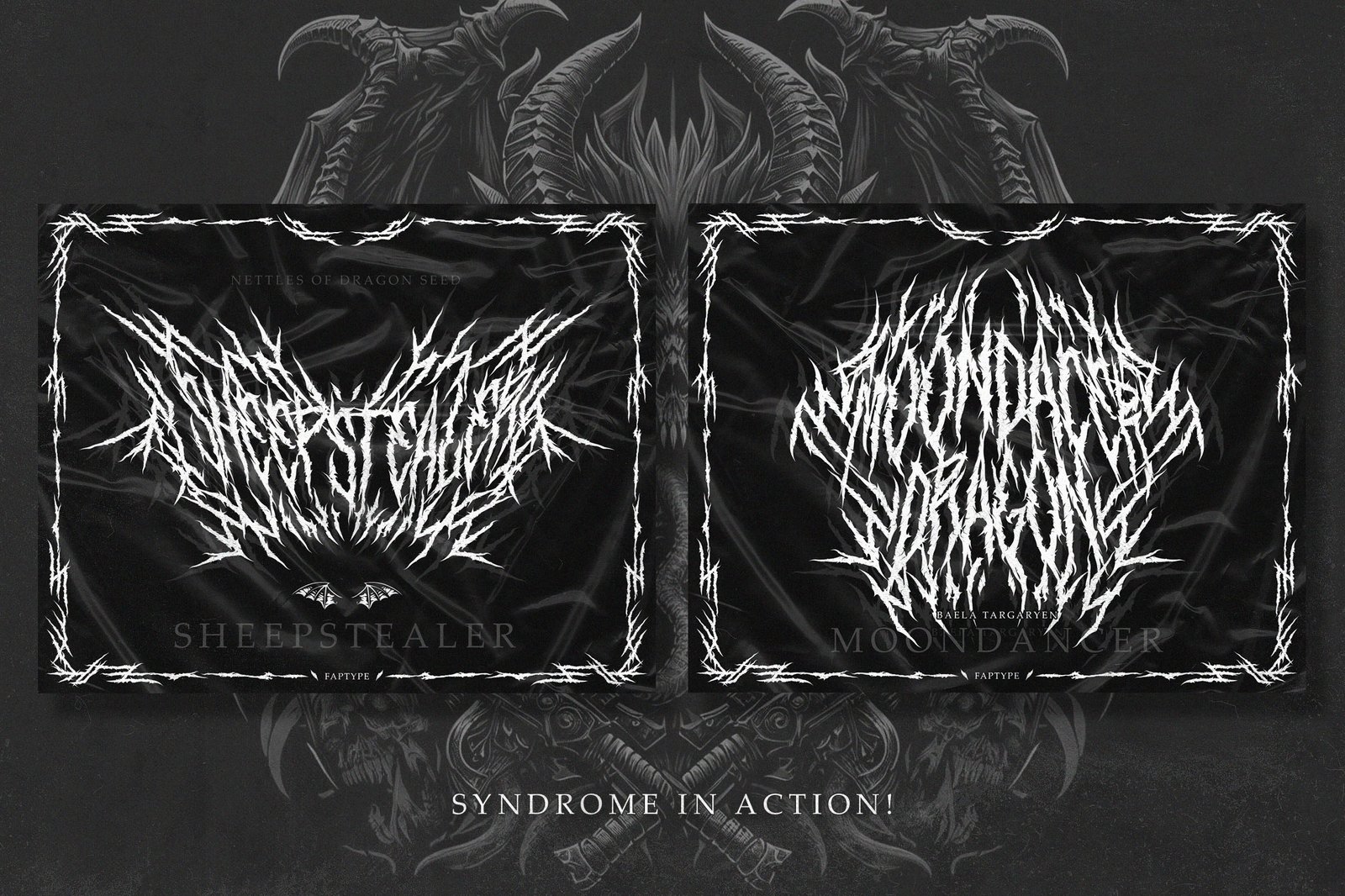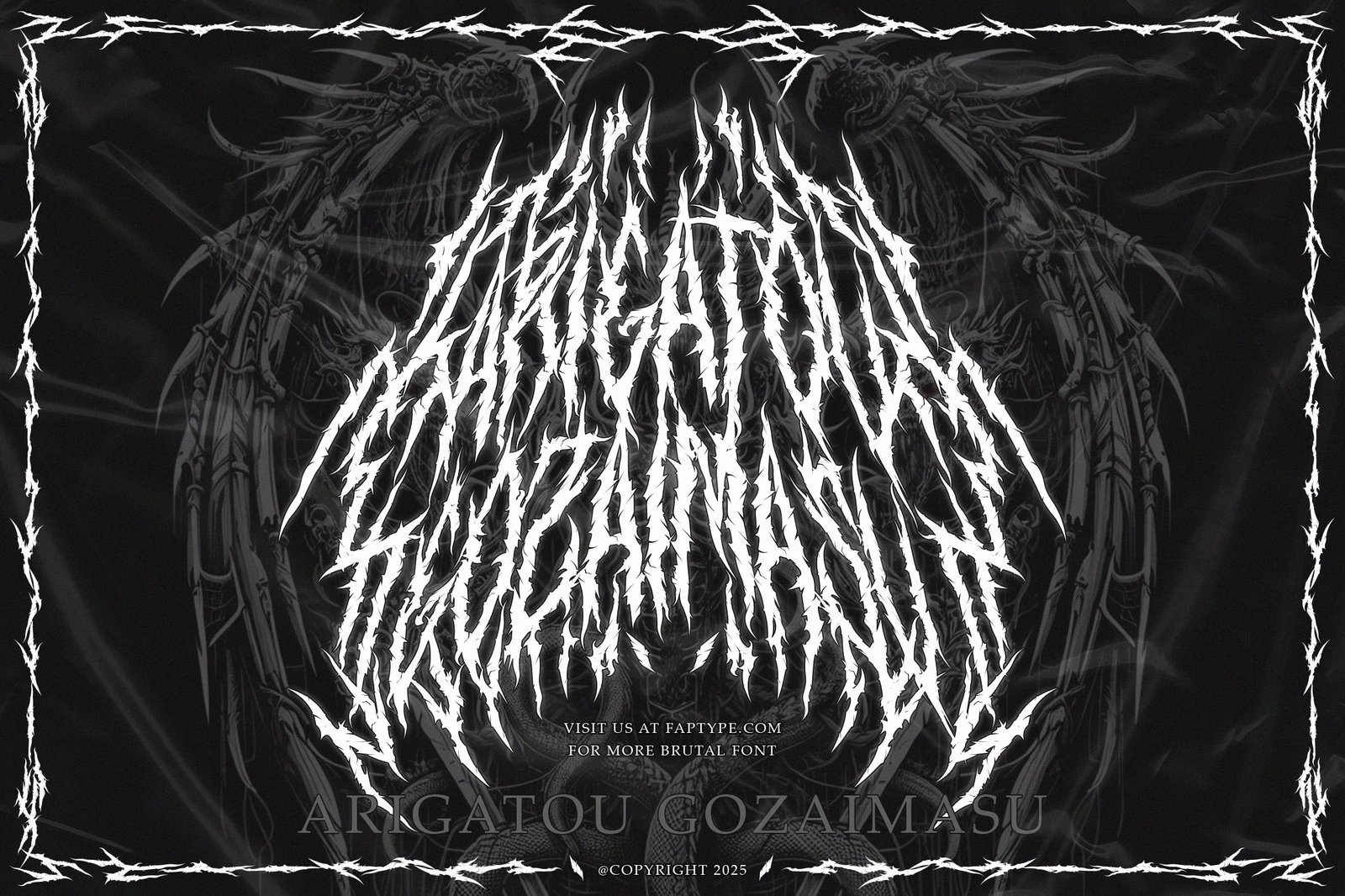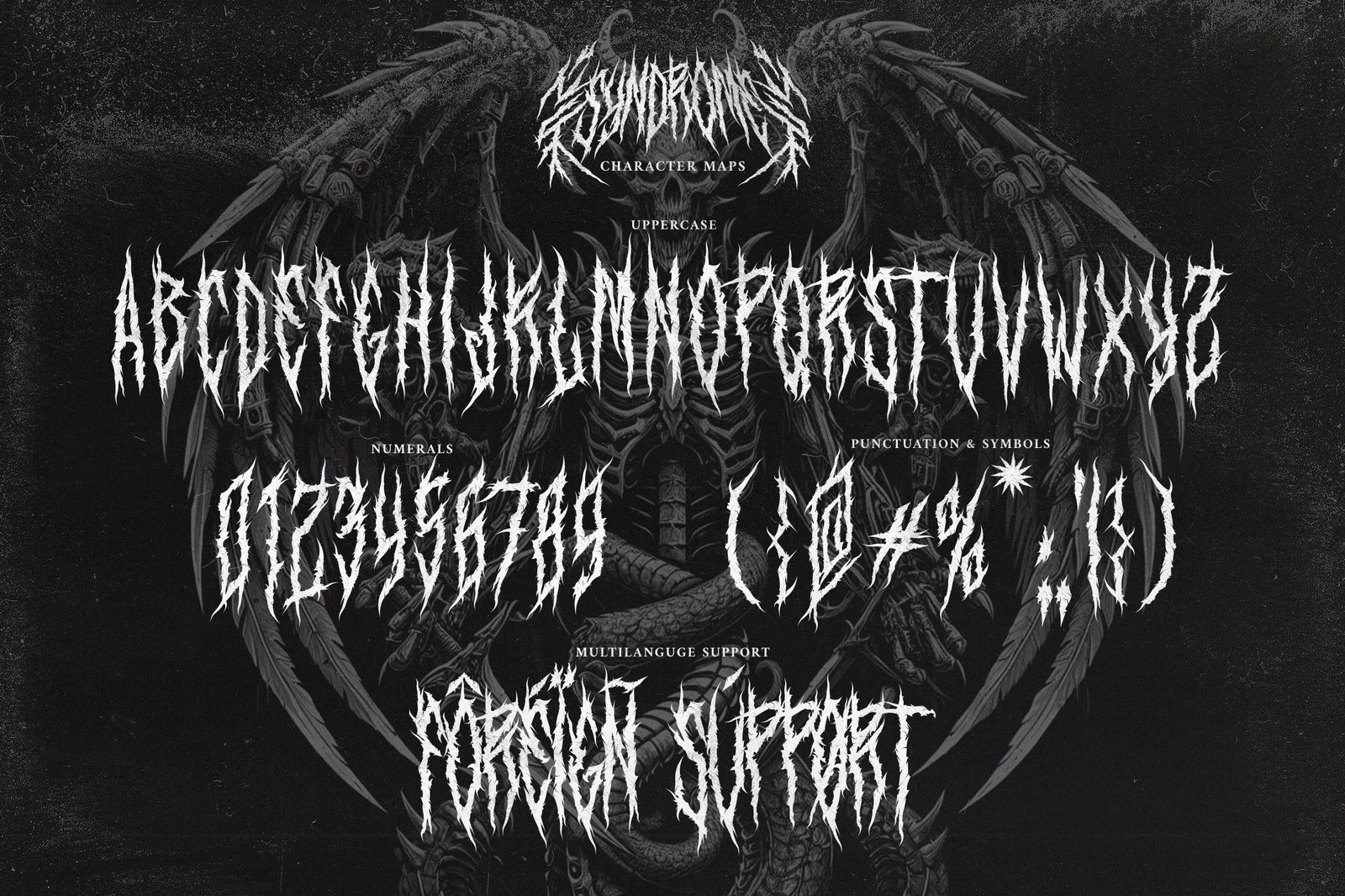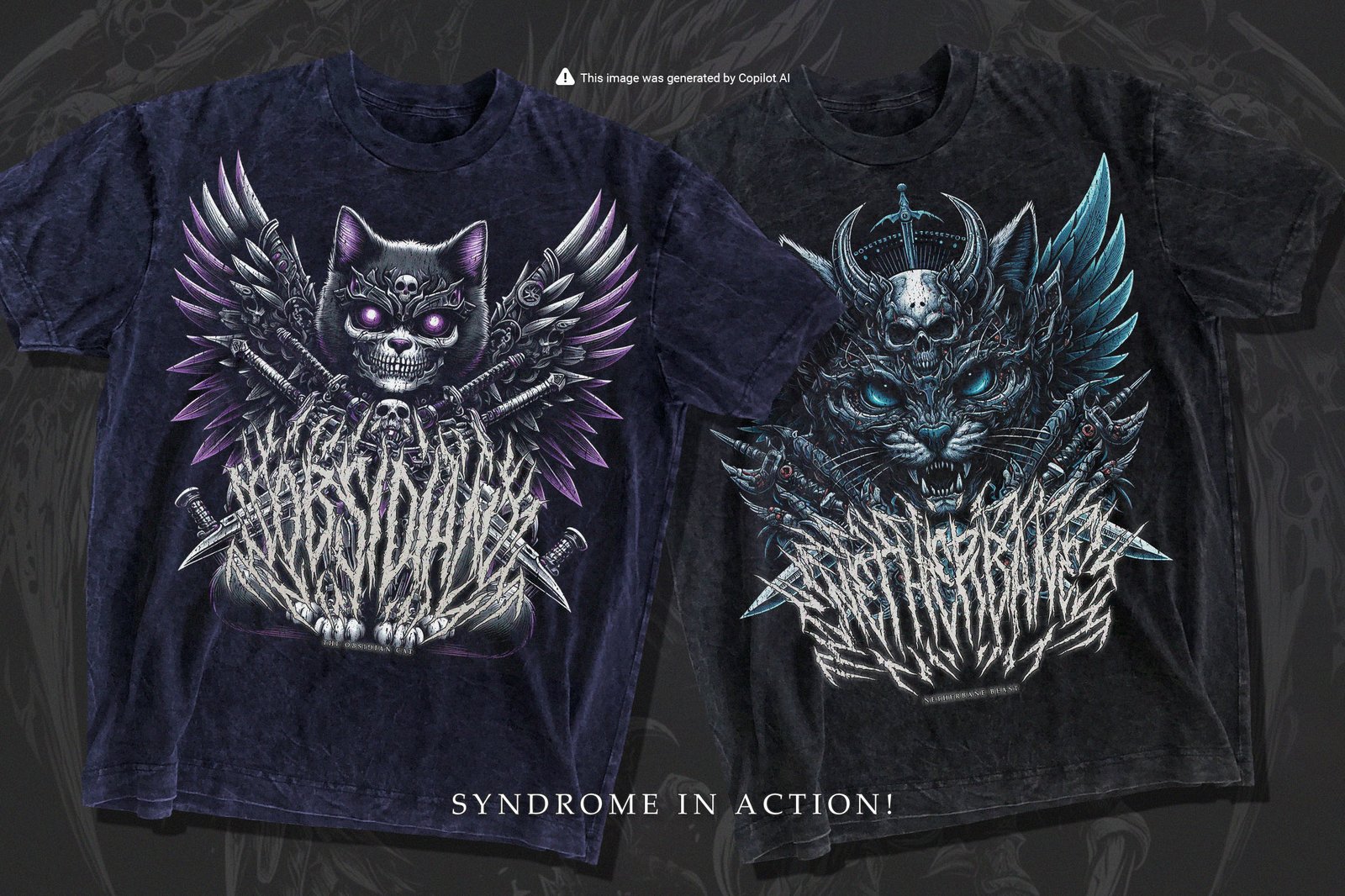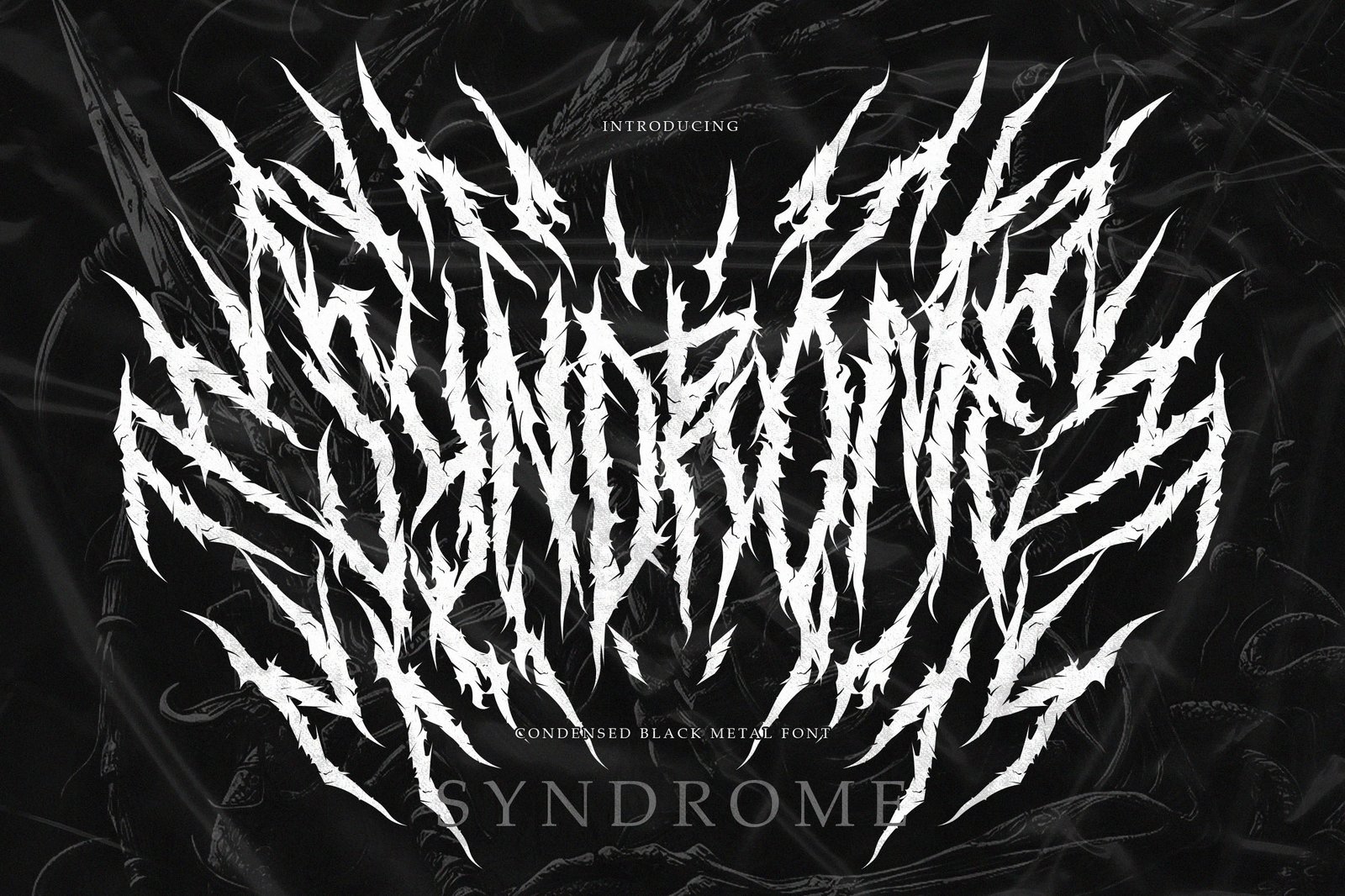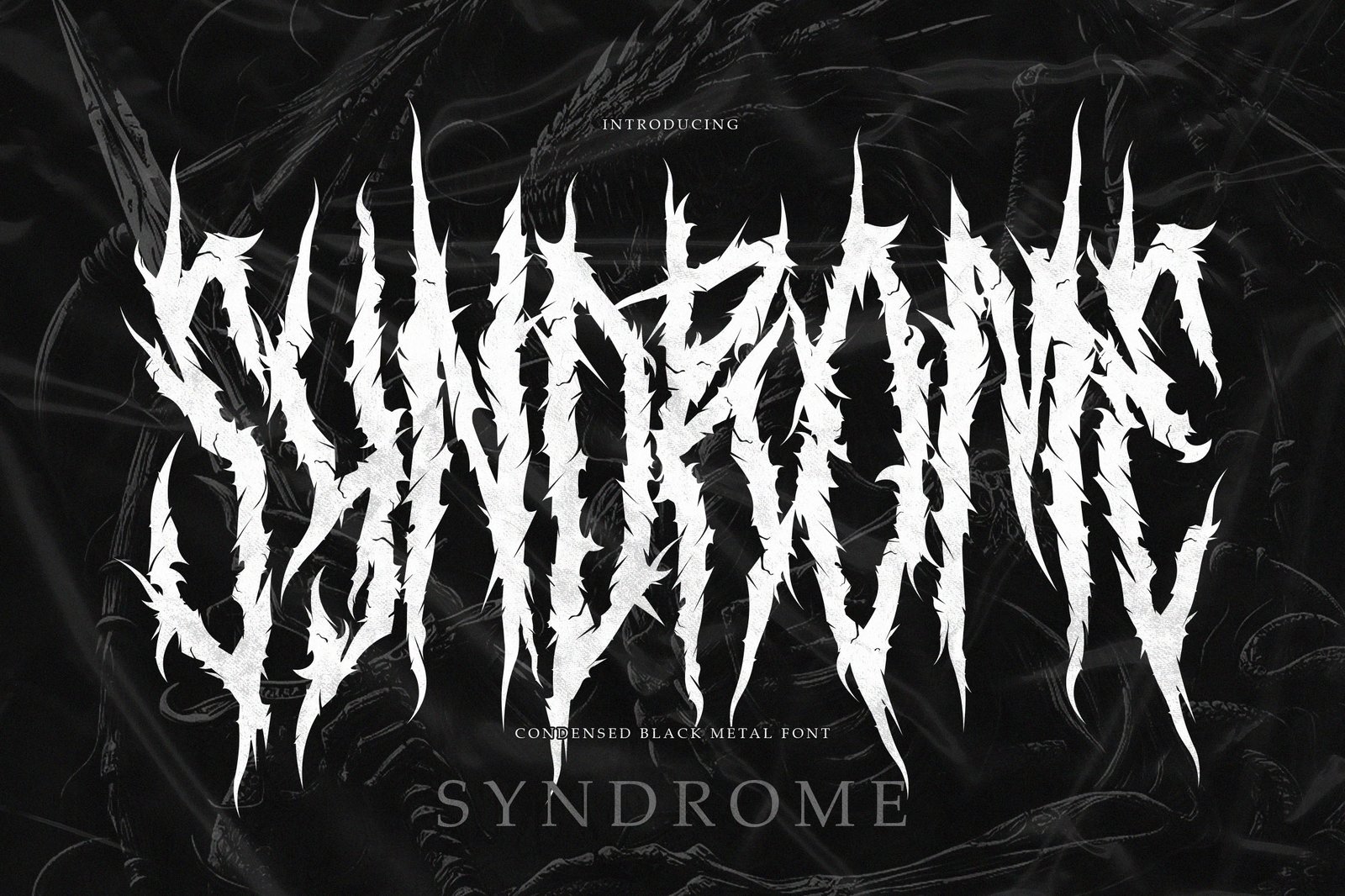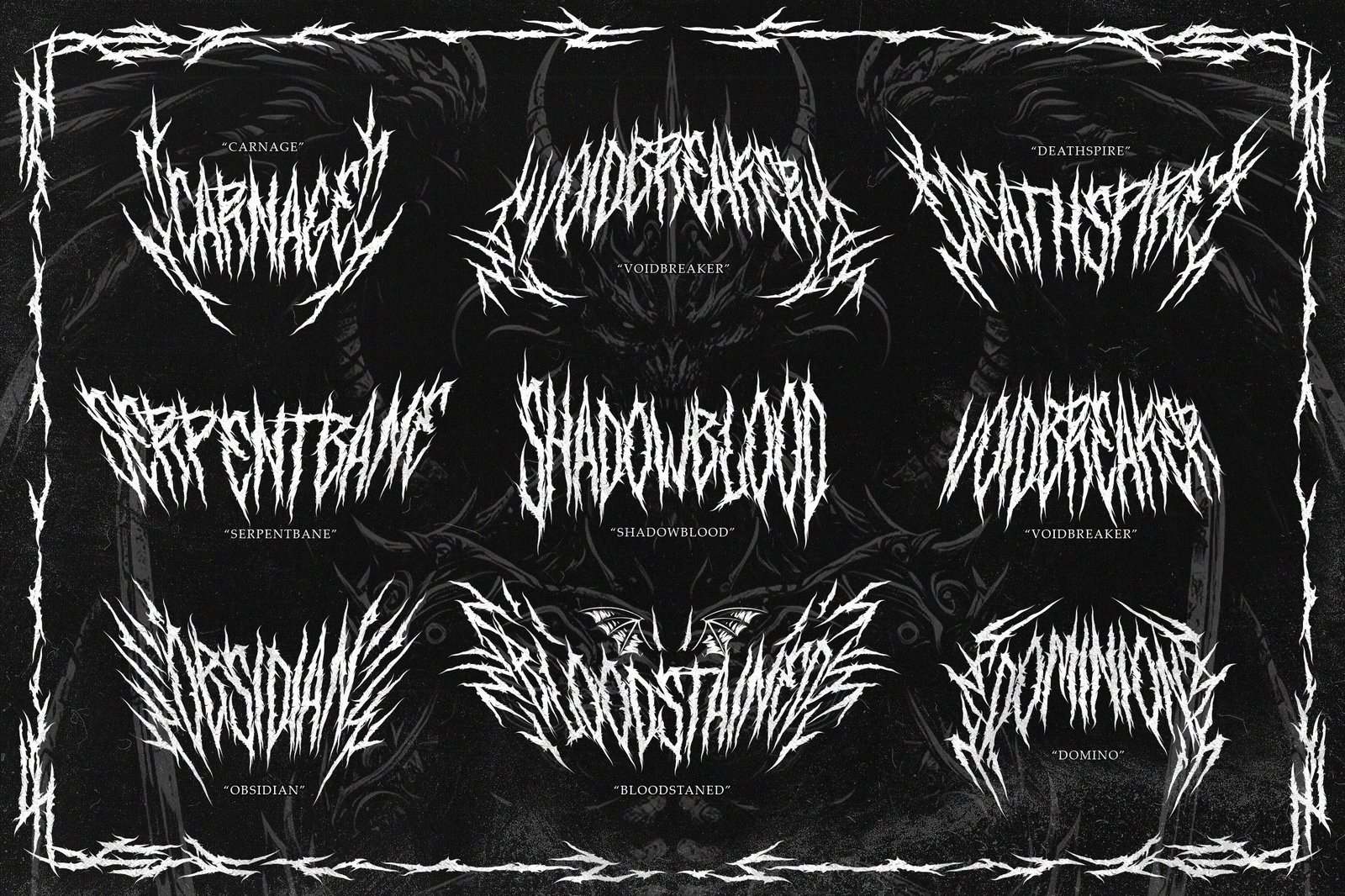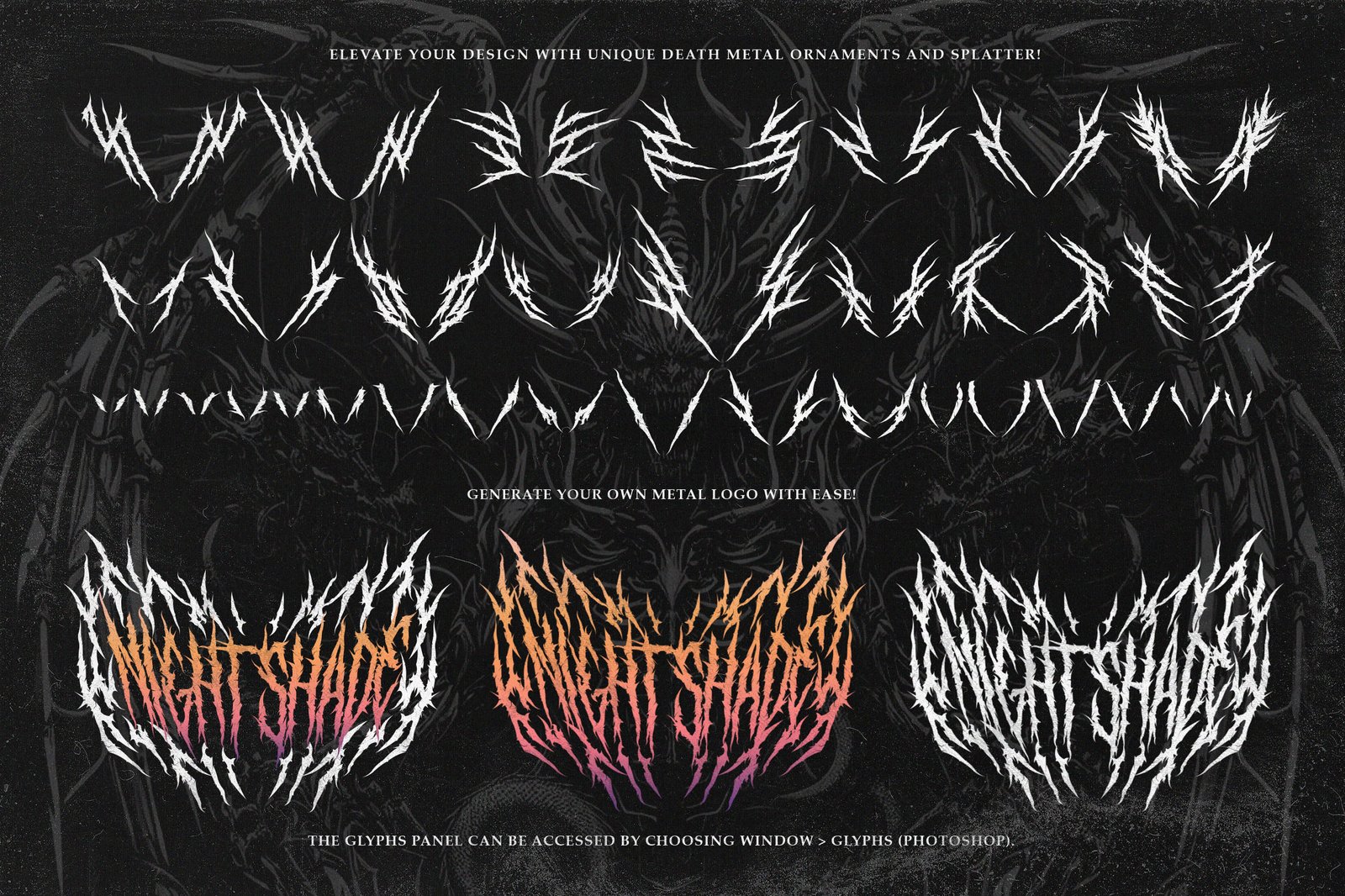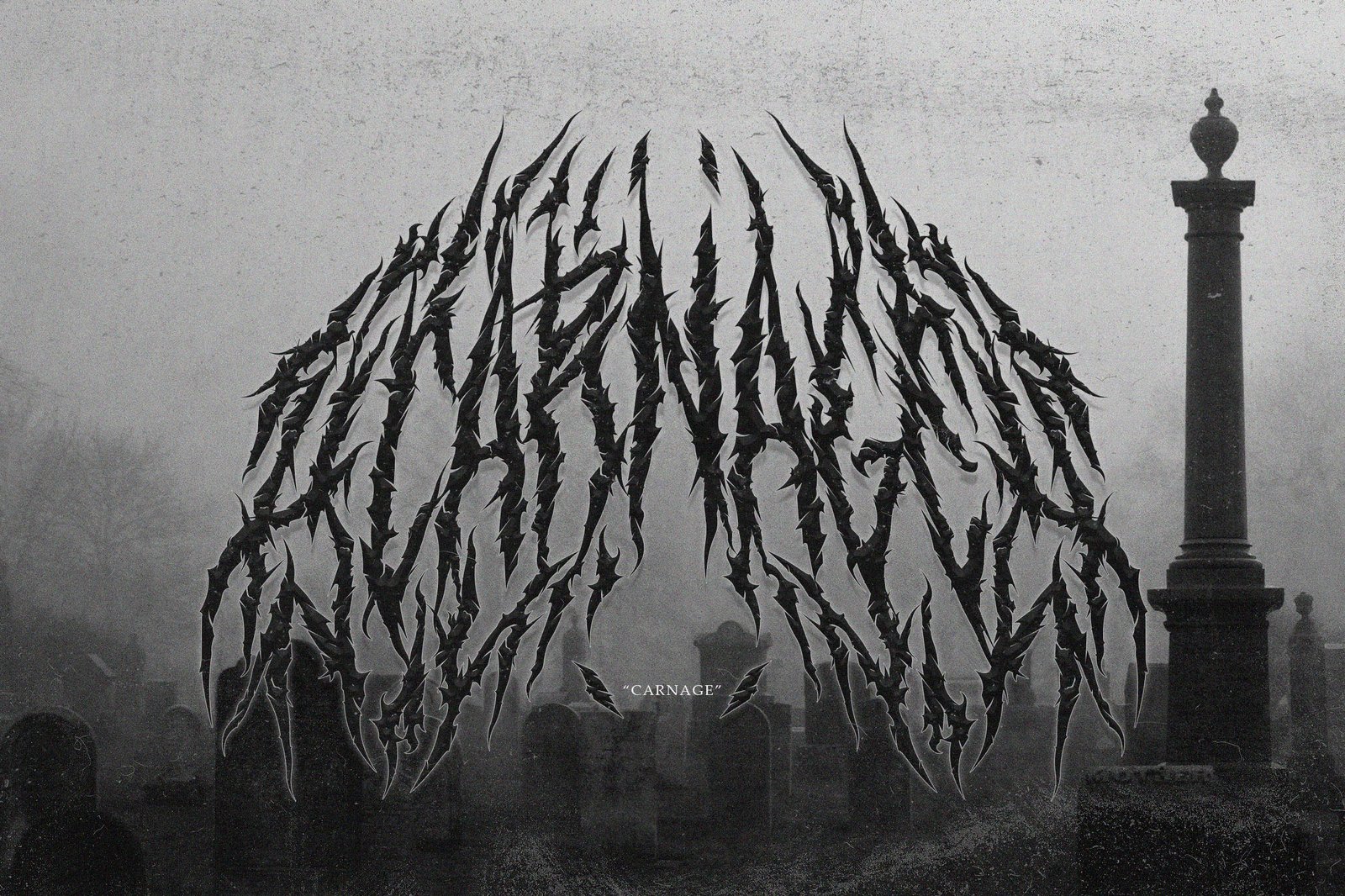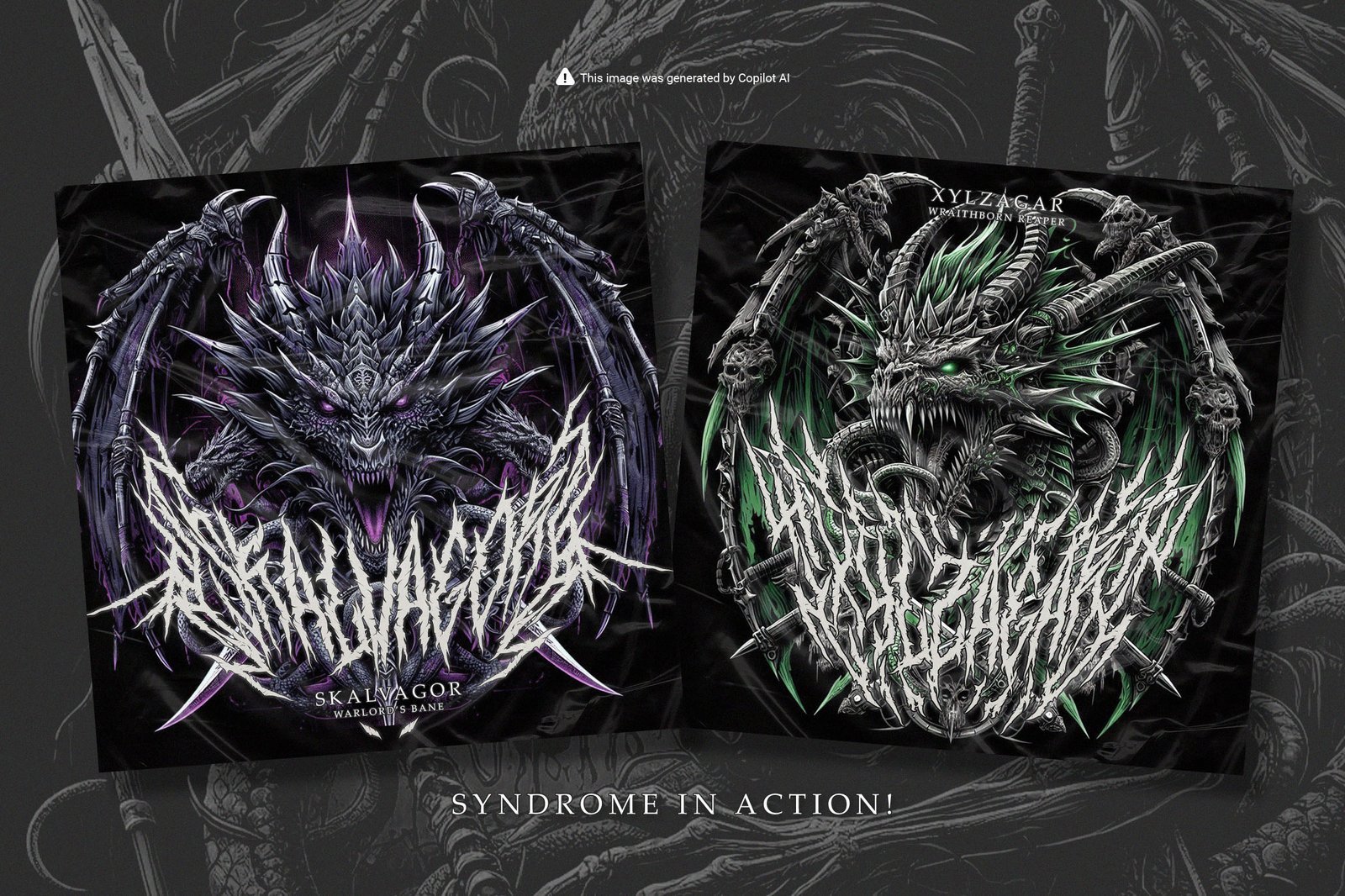
Syndrome – Condensed Black Metal Font
Unleash the raw power of darkness with Syndrome, a condensed black metal font forged in the depths of the abyss. Designed for those who dare to embrace the extreme, Syndrome delivers a sinister, razor-sharp aesthetic that captures the chaotic energy of black metal, death metal, and underground extreme music culture.
With its narrow yet aggressive letterforms, this typeface cuts through the void like a blade of pure darkness. Each stroke drips with raw intensity, evoking the essence of cryptic sigils, ancient grimoires, and the unholy resonance of blackened soundscapes. Syndrome is not just a font—it’s a visual manifestation of brutality, rebellion, and darkness.
Whether you're crafting band logos, album covers, gig posters, clothing lines, or extreme horror visuals, Syndrome brings the perfect fusion of legibility and brutality. Its condensed structure ensures maximum impact in tight spaces while maintaining a ferocious, high-contrast aesthetic. This is a font that demands attention—an invocation of chaos, mysticism, and raw underground power.
Step into the void and let Syndrome become the visual weapon of your blackened creations. Are you ready to embrace the darkness?
Syndrome features:
A full set of Uppercase
Numbers and Punctuation
Multilingual Language Support
+98 Death Metal Ornaments and Splatter included!